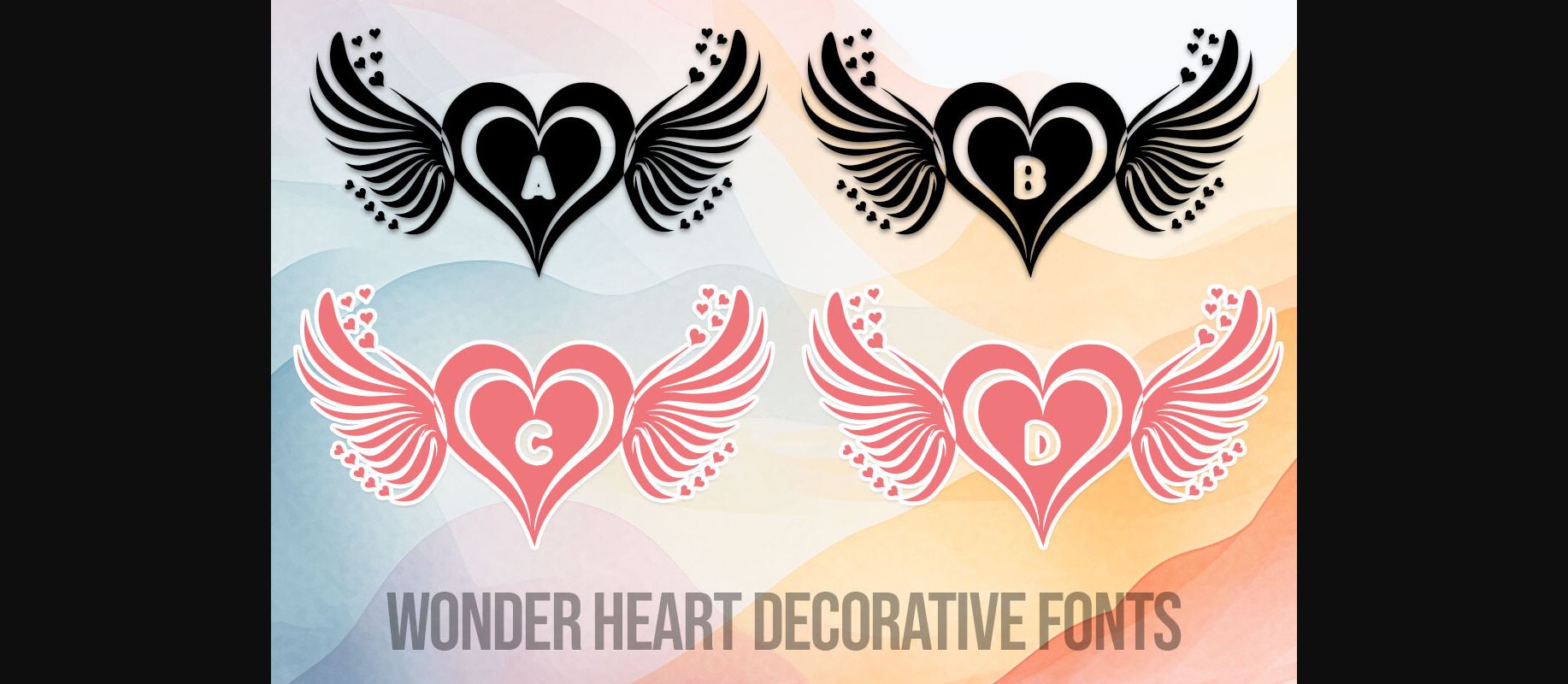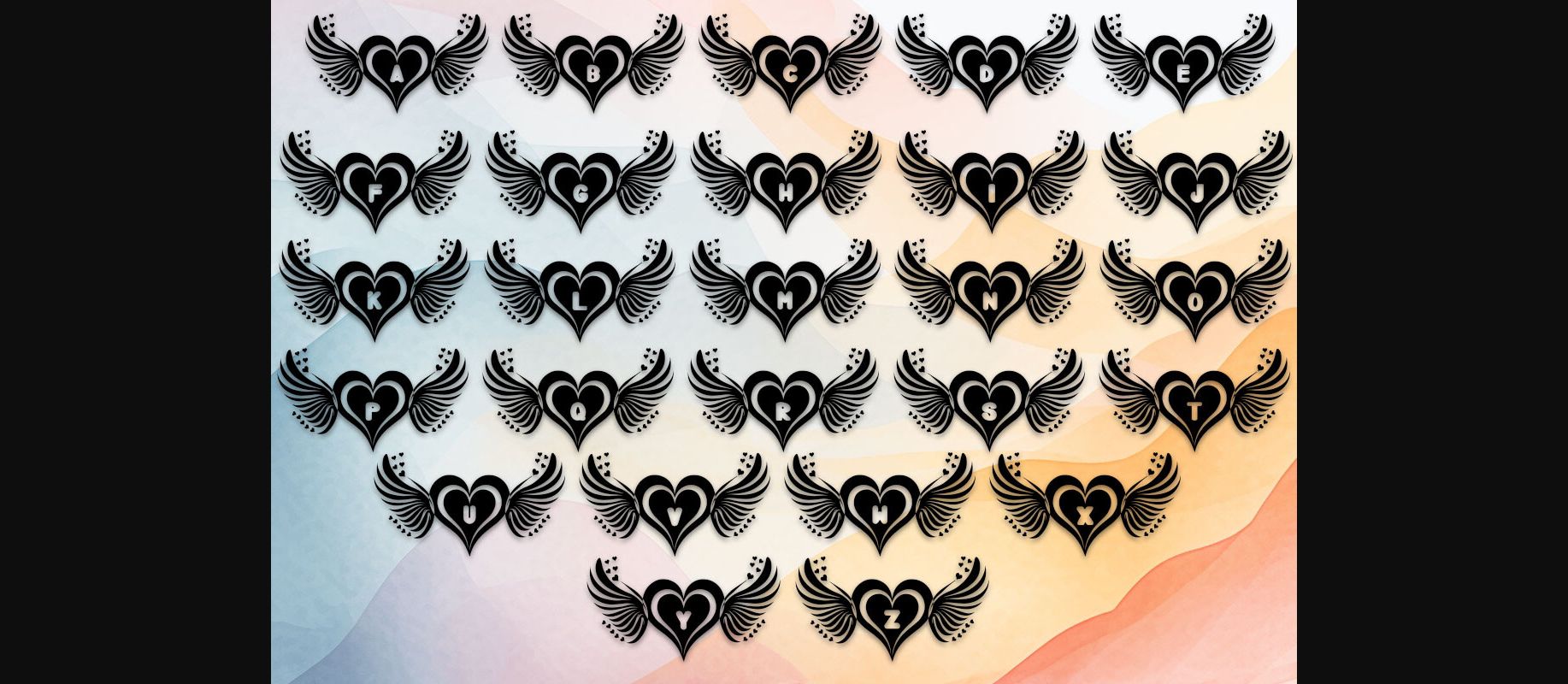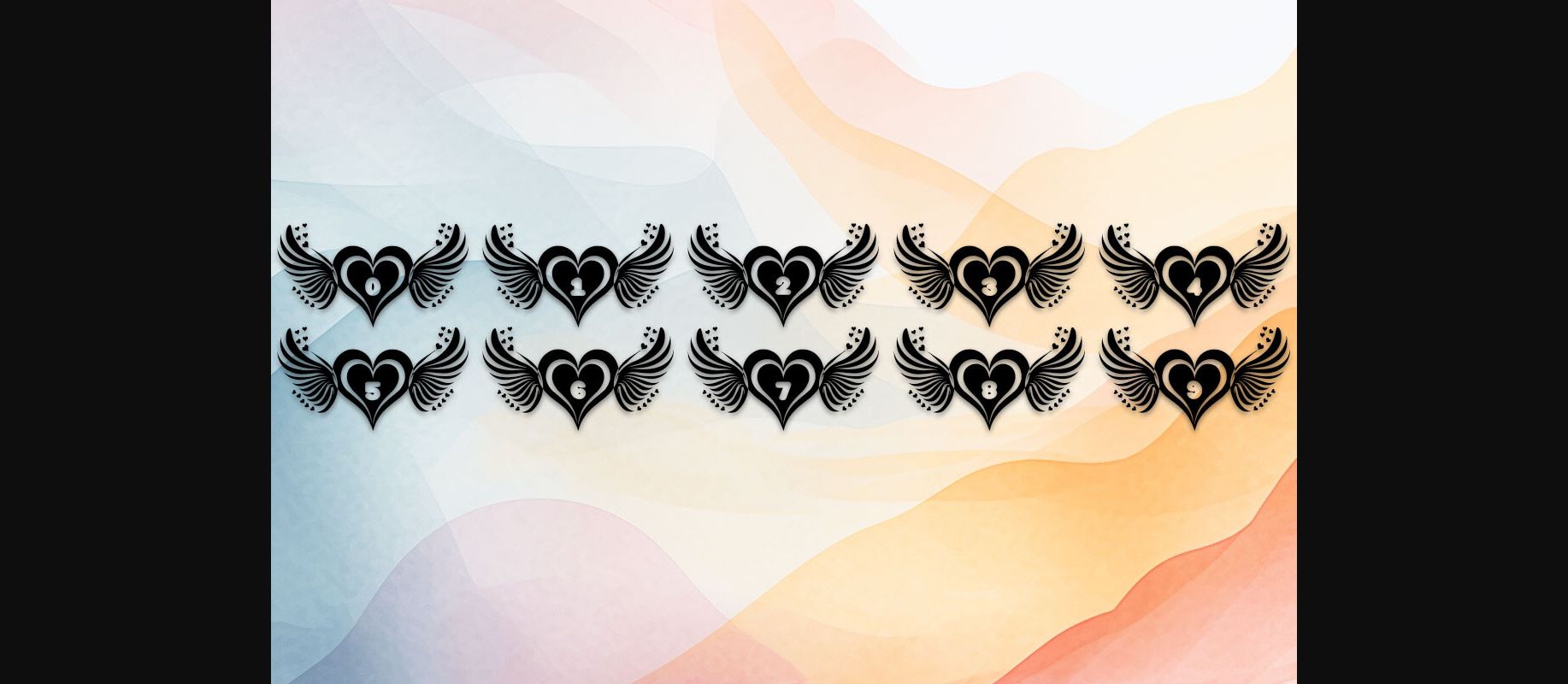
Wonder Heart Font
Introducing “Wonder Heart Fonts,” a captivating set featuring 36 characters, including 26 uppercase letters and numbers 0-9. This font collection showcases exquisitely crafted wings enveloping the symbol of love – the heart. Perfect for adding an enchanting touch to your typographic creations